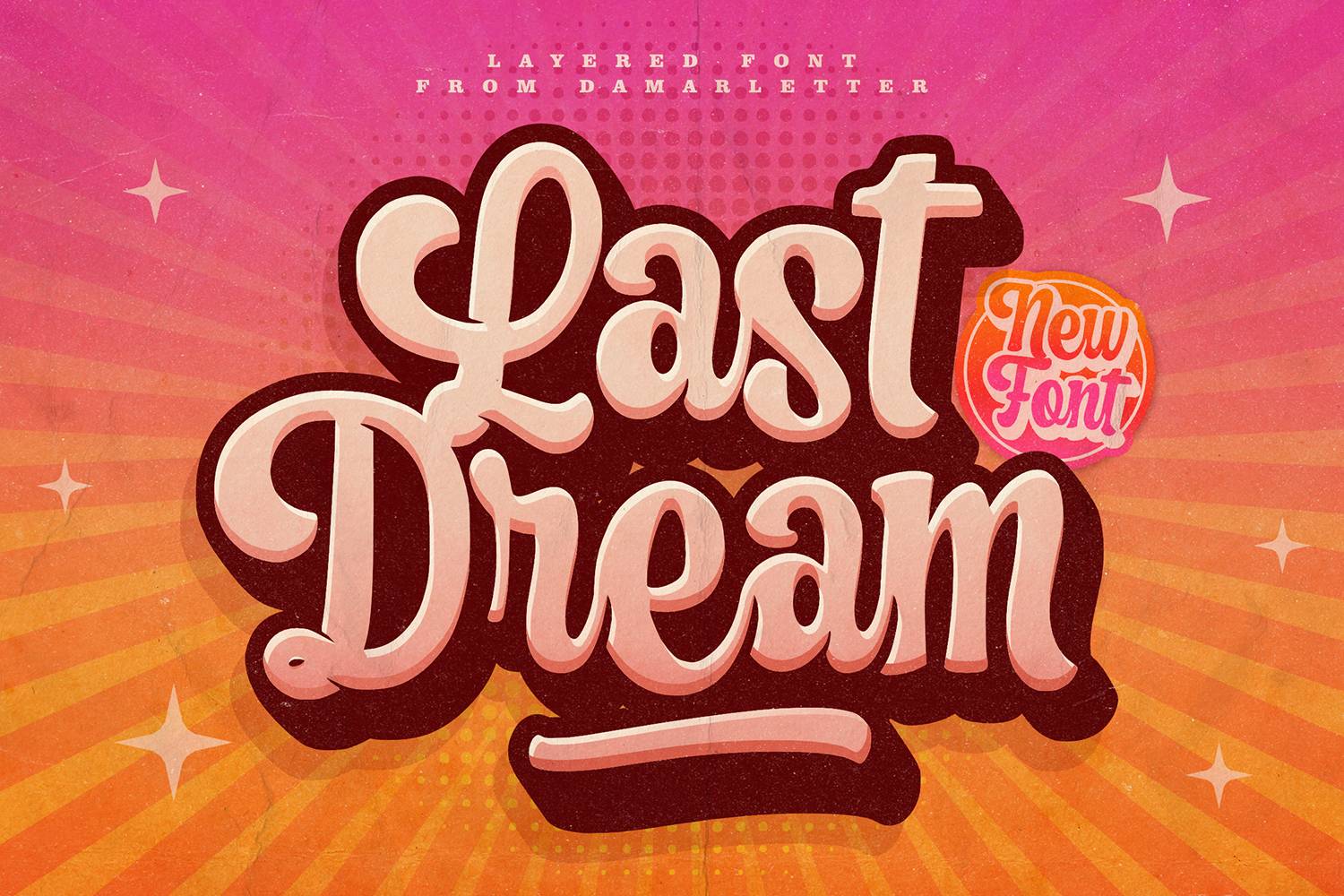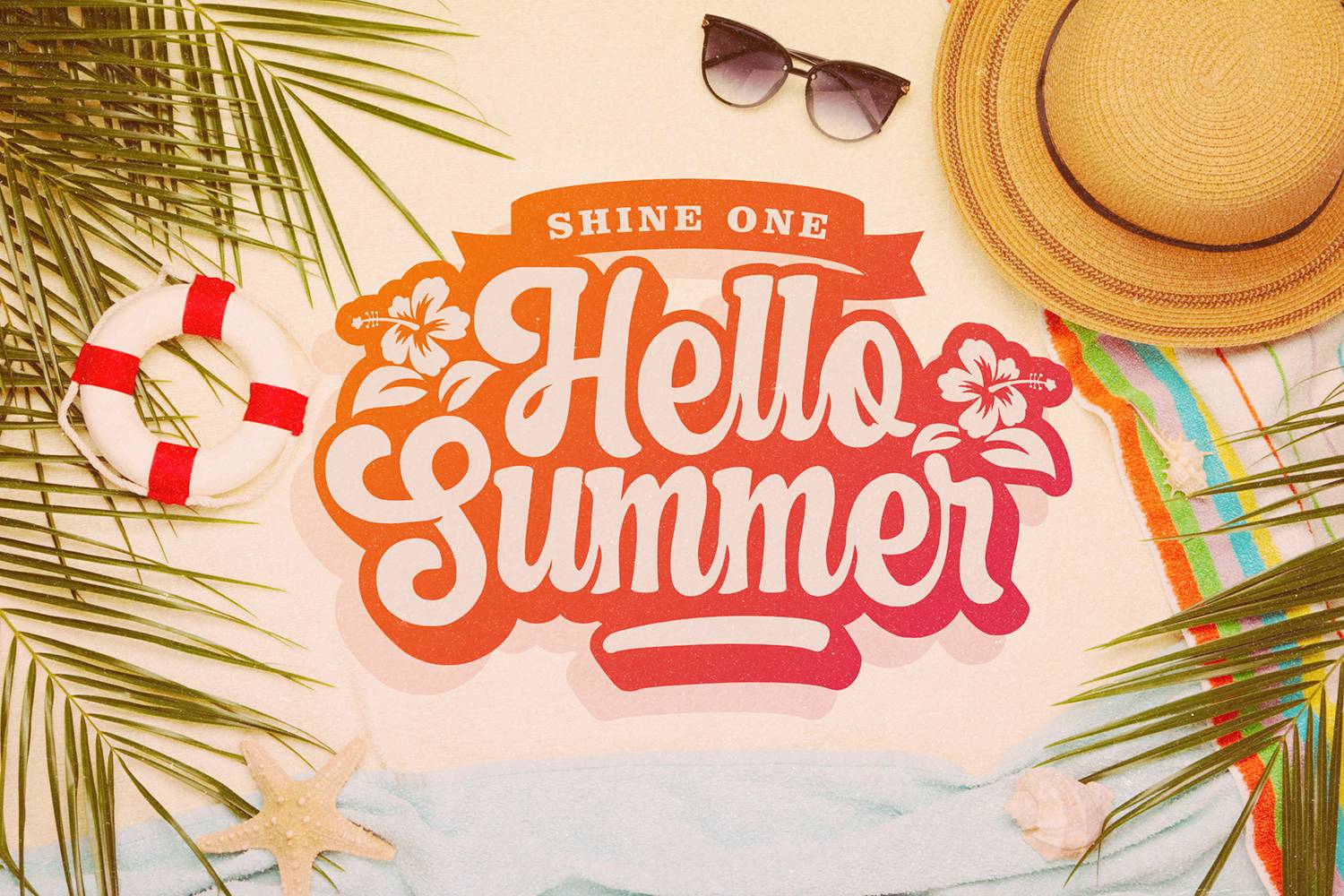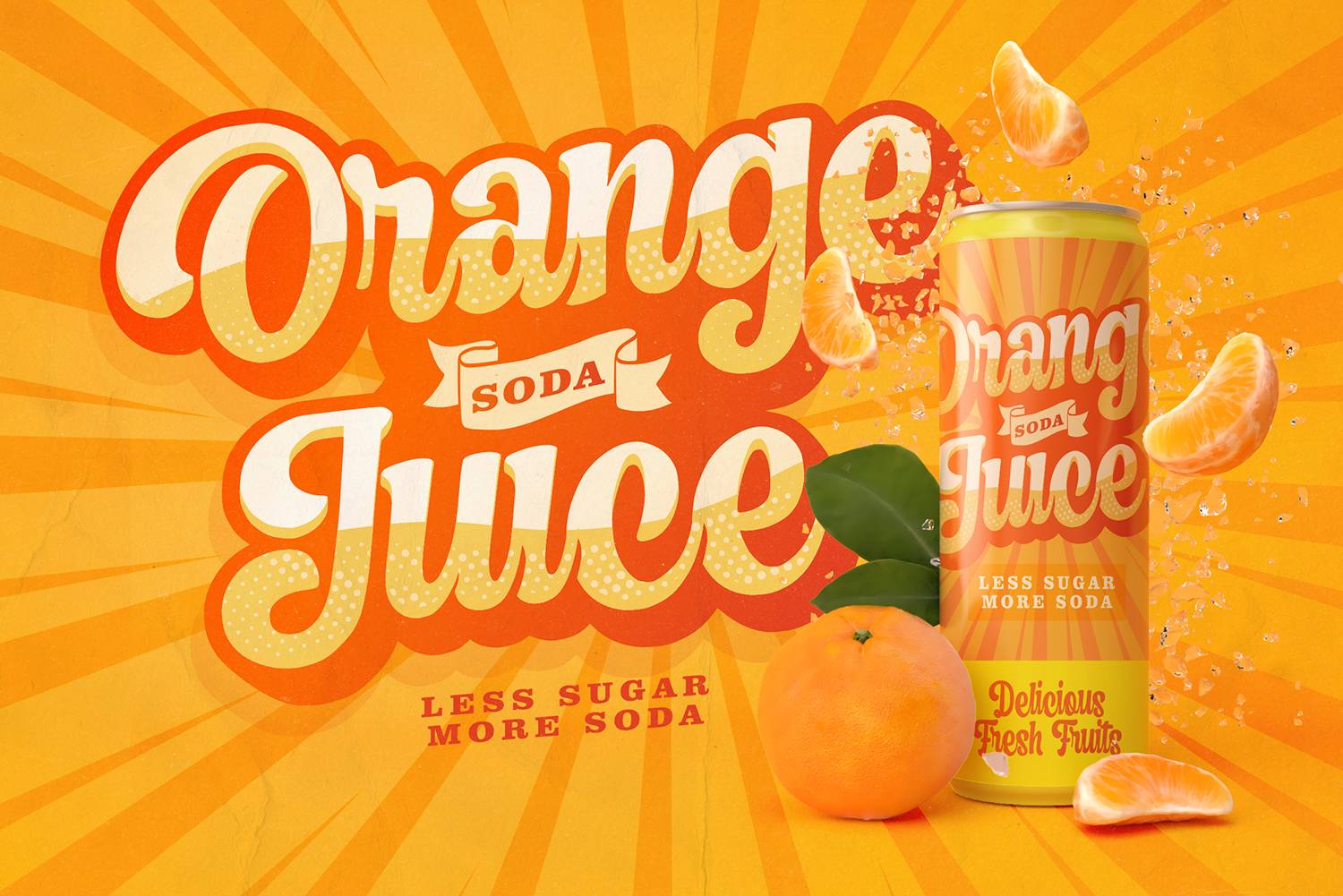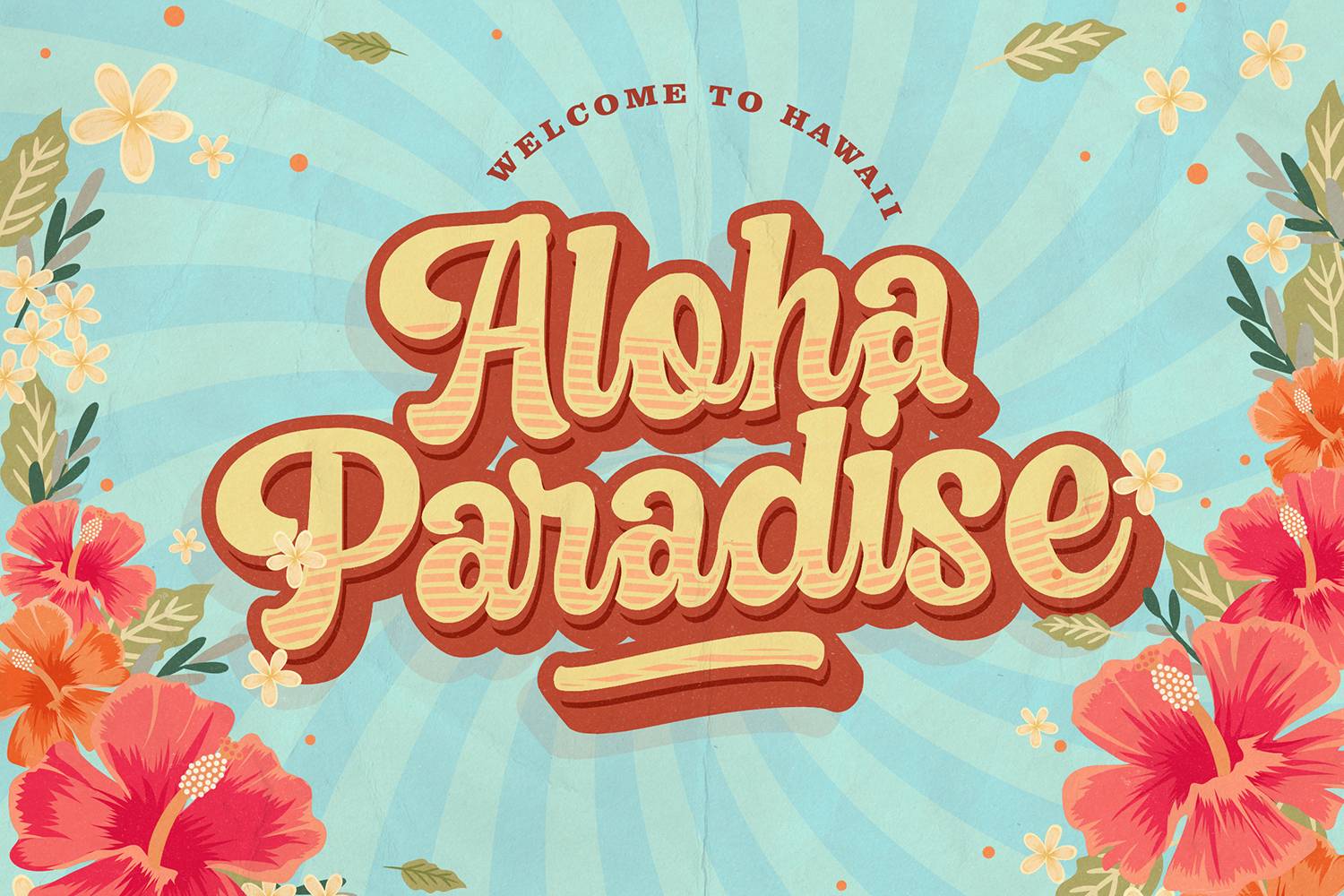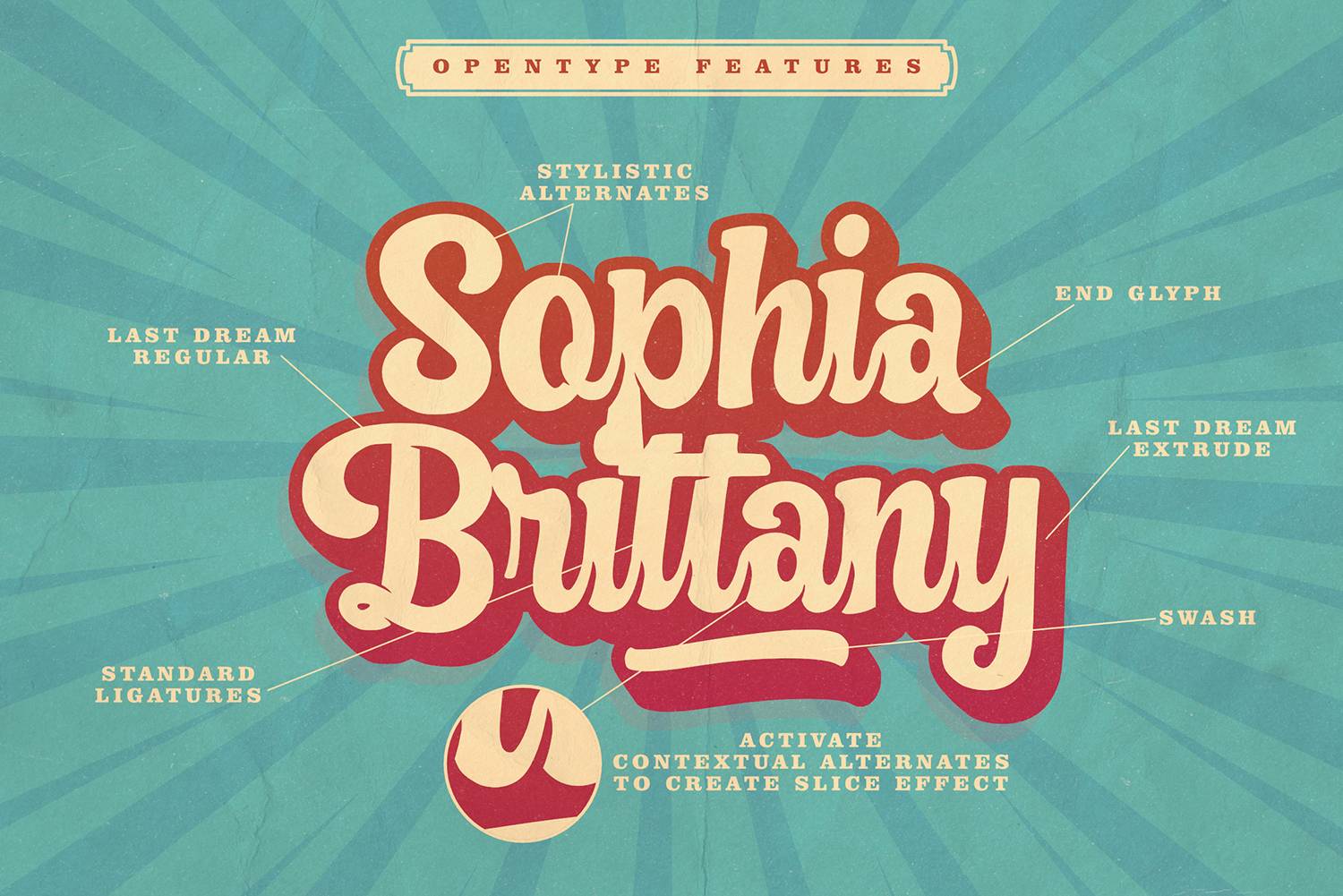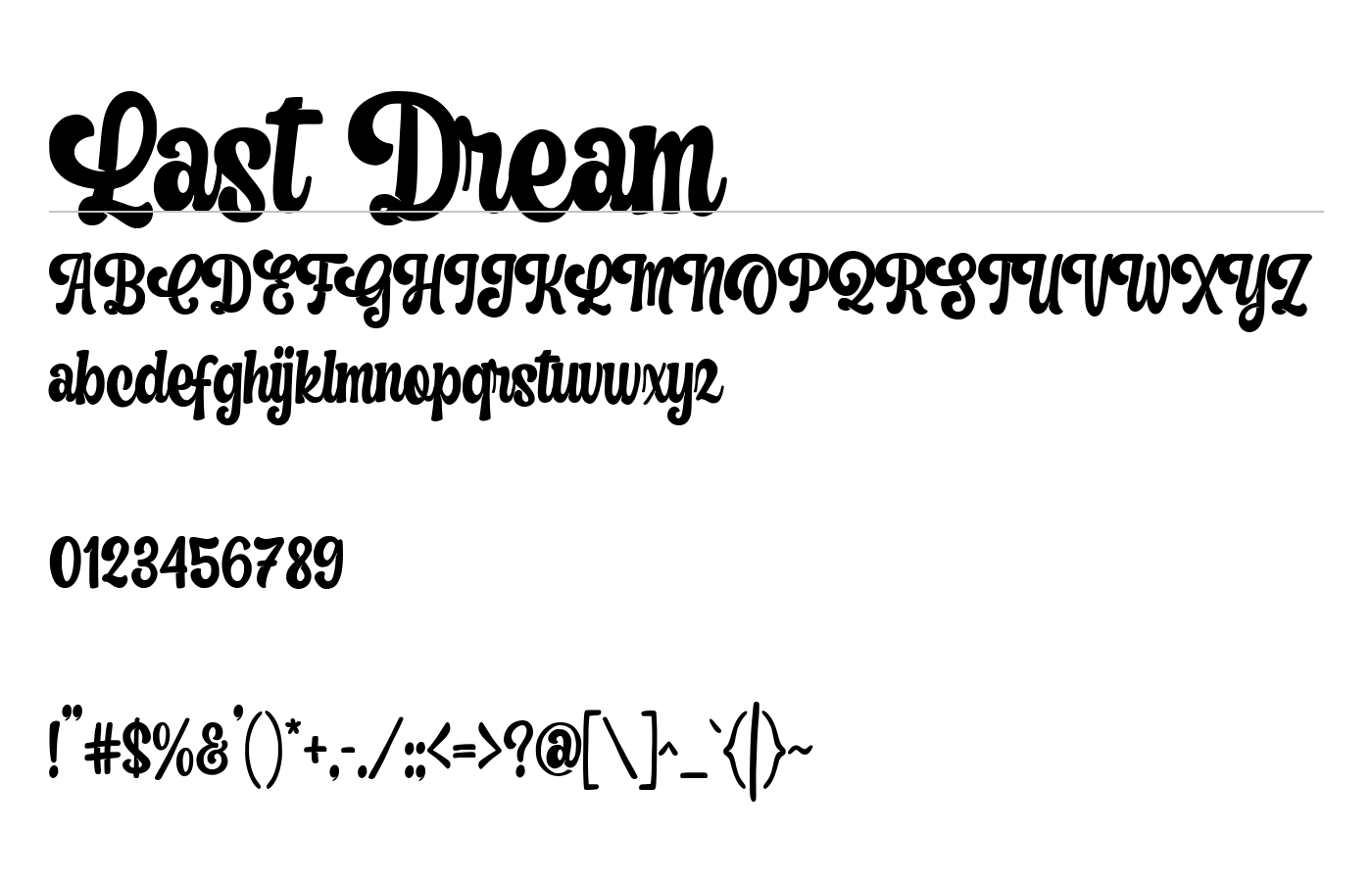
Last Dream is a bold, playful script font with strong, rounded strokes and charming curls that give it a vintage, hand-crafted feel. Its lively, condensed letterforms and consistent weight make it ideal for eye-catching headlines, logos, and branding that want to evoke a sense of fun and personality. Perfect for creative projects and retro-inspired designs, it brings an inviting and energetic character wherever it’s used.
Last Dream Font